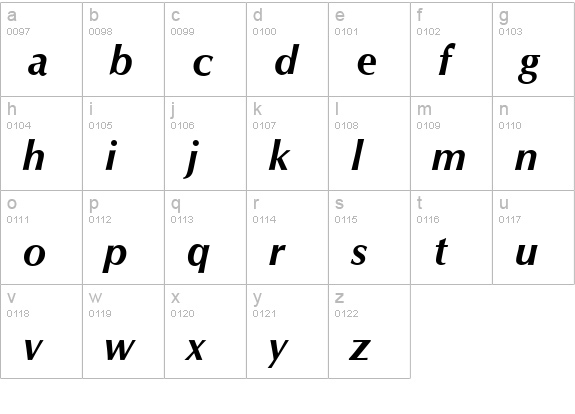
O801-Flare-BoldItalic Font Details
O801-Flare-BoldItalic font is a striking and stylish typeface that exudes confidence and sophistication. Its bold and italic design adds a touch of flair to any project, making it perfect for headlines, titles, and branding materials. This versatile font is free to download at FontsMarket.com, allowing you to easily incorporate it into your designs without any cost. Whether you're creating posters, advertisements, or social media graphics, O801-Flare-BoldItalic font will make a bold statement and elevate your work to the next level. With its modern and eye-catching look, this font is sure to capture the attention of your audience and leave a lasting impression.